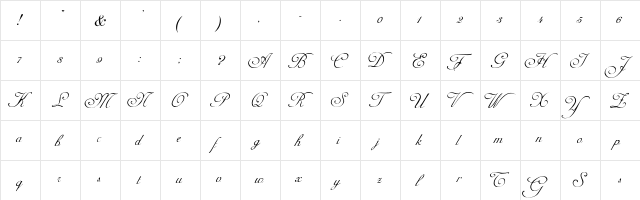
AdineKirnberg-Script Regular
Design Context for AdineKirnberg-Script Typeface
AdineKirnberg-Script flows with the natural rhythm of handwritten lettering, making it ideal for designs that call for warmth and personal expression.
Font Pairing: Combine AdineKirnberg-Script with a simple geometric sans for maximum contrast — the tension between flowing curves and clean structure is a classic typographic pairing.
Pro Tip: Use AdineKirnberg-Script for short runs of text — names, titles, or taglines. Extended body copy in script faces tires the eye quickly.